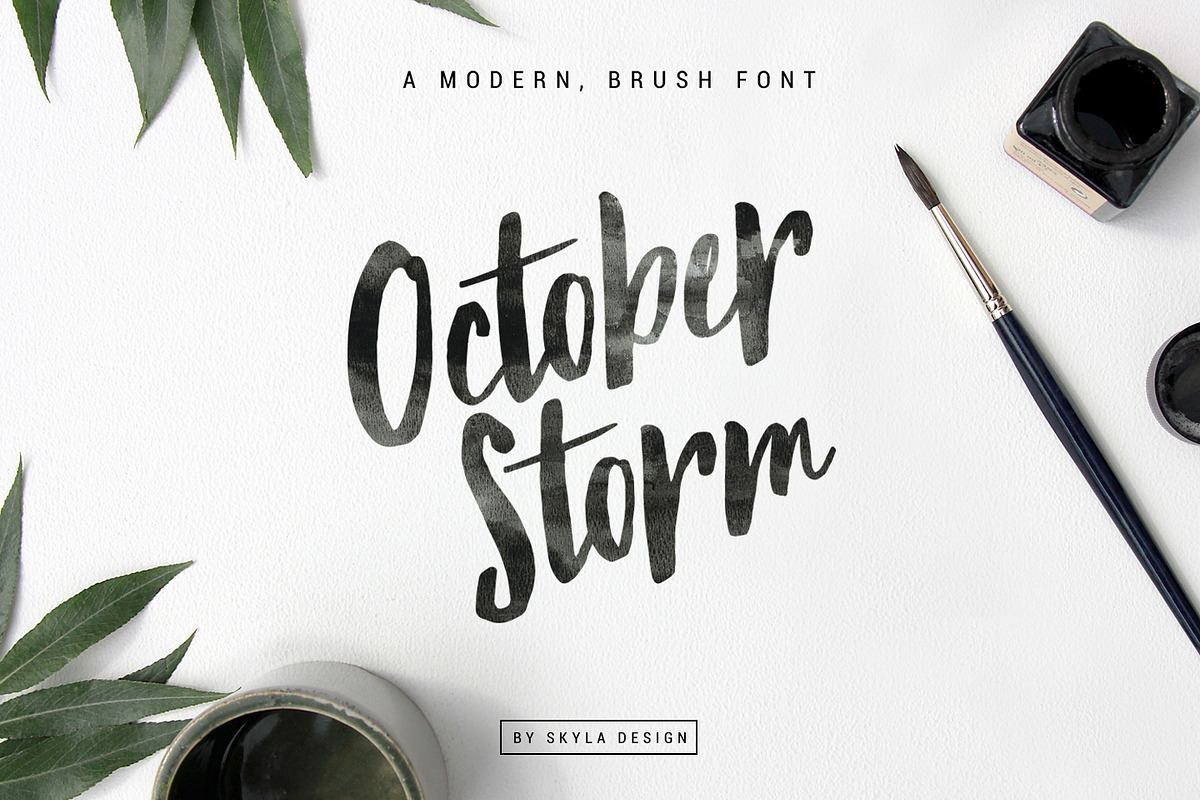
October Storm – Modern Brush Font Free Download
October Storm – Modern Brush Font Free Download is a bold and expressive typeface that combines the raw energy of brush lettering with modern design aesthetics. Featuring dynamic strokes, textured edges, and a handcrafted vibe, October Storm is perfect for posters, album covers, apparel, branding, social media graphics, and any design that needs a dramatic, rebellious edge.
Designed for impact, October Storm Free Download includes alternates and ligatures to give your typography a natural, customized feel. Its bold presence makes it ideal for headlines, logos, and creative layouts that want to stand out with attitude.